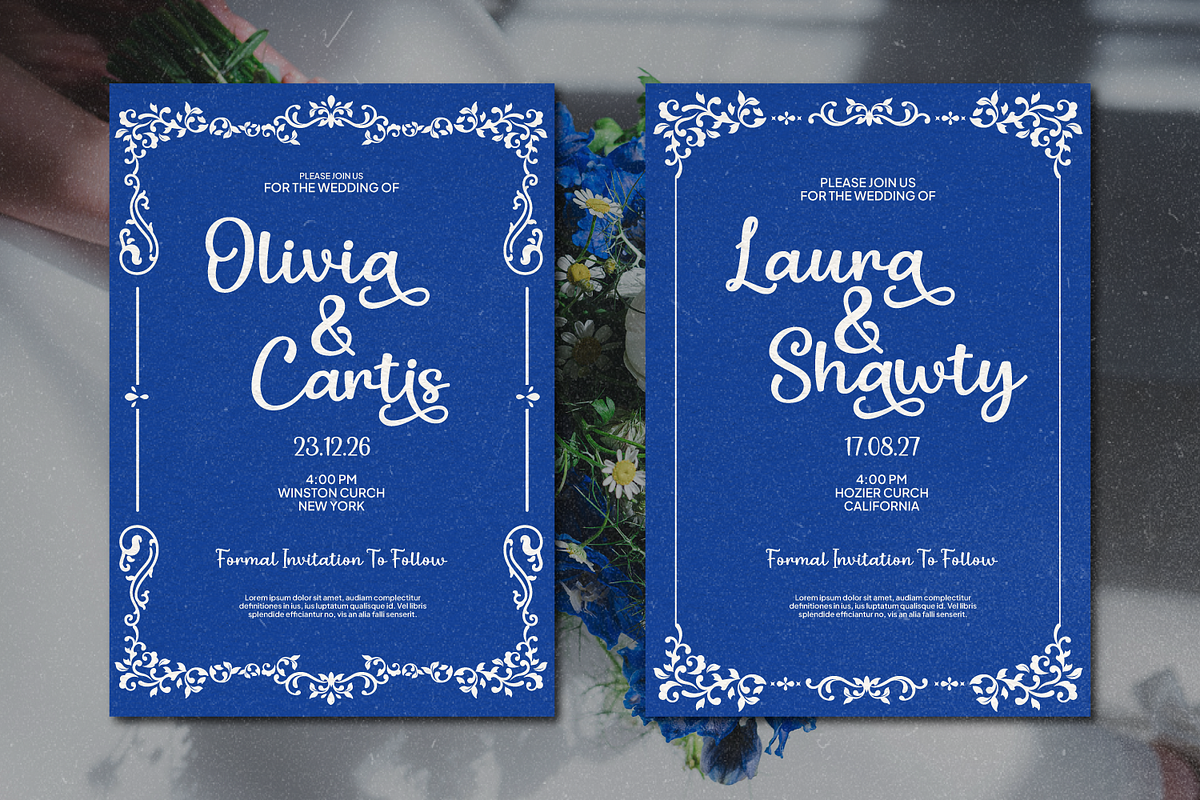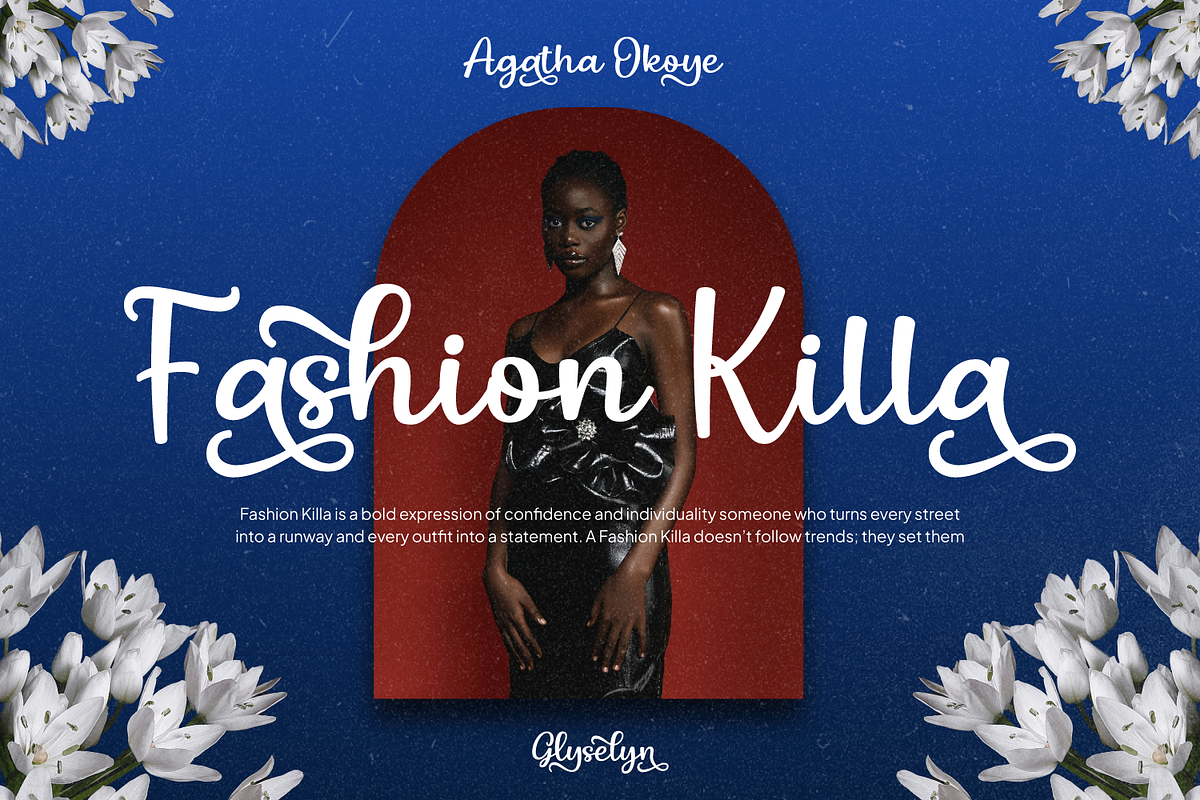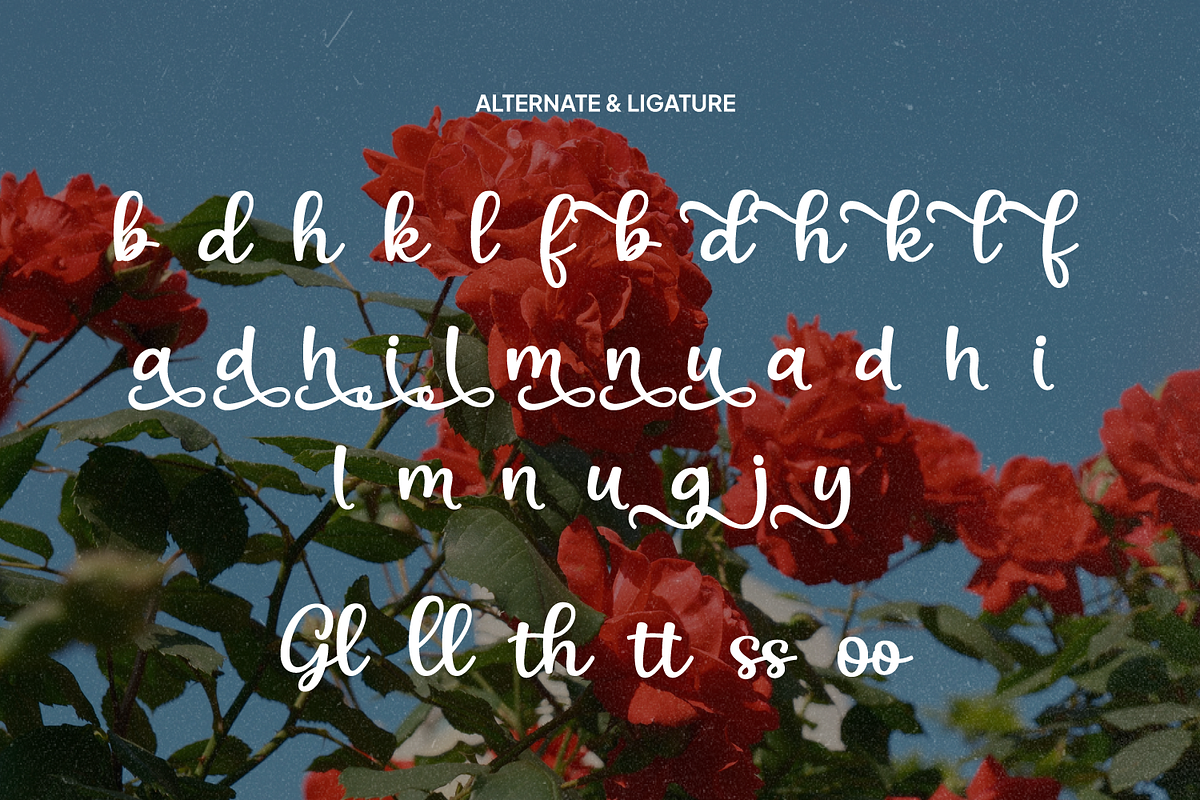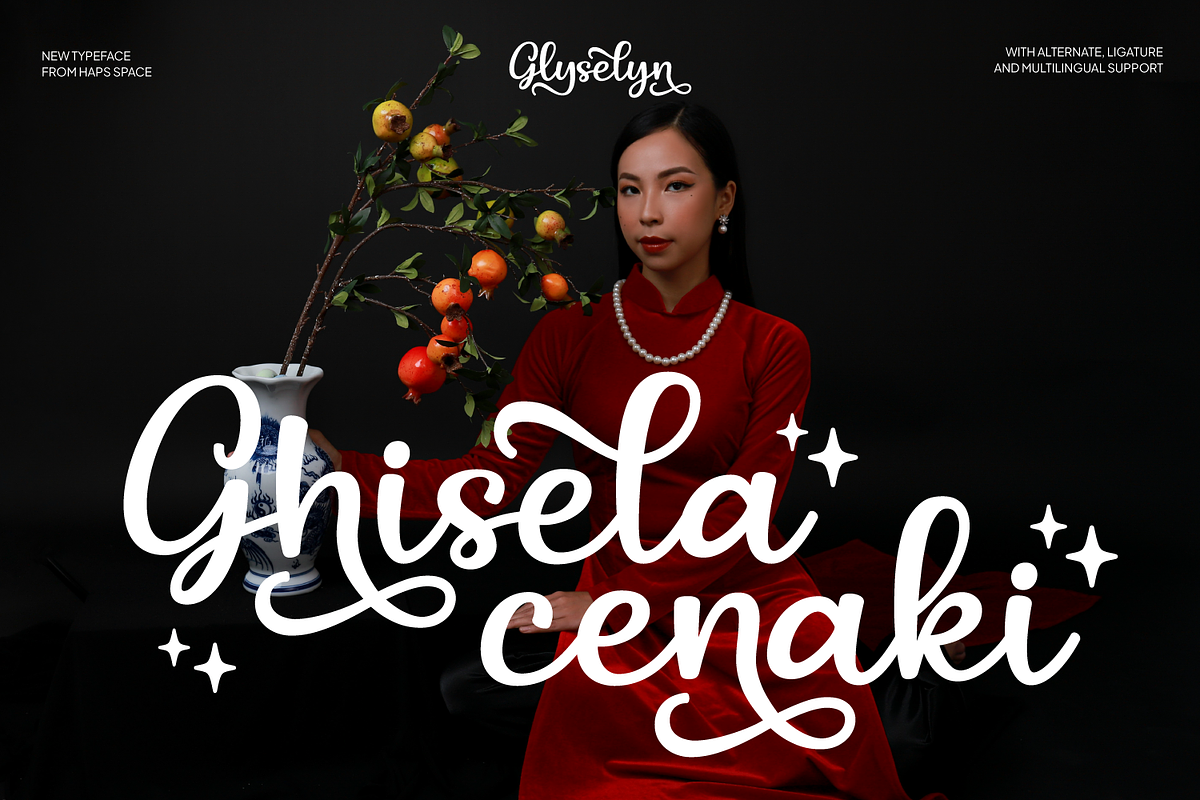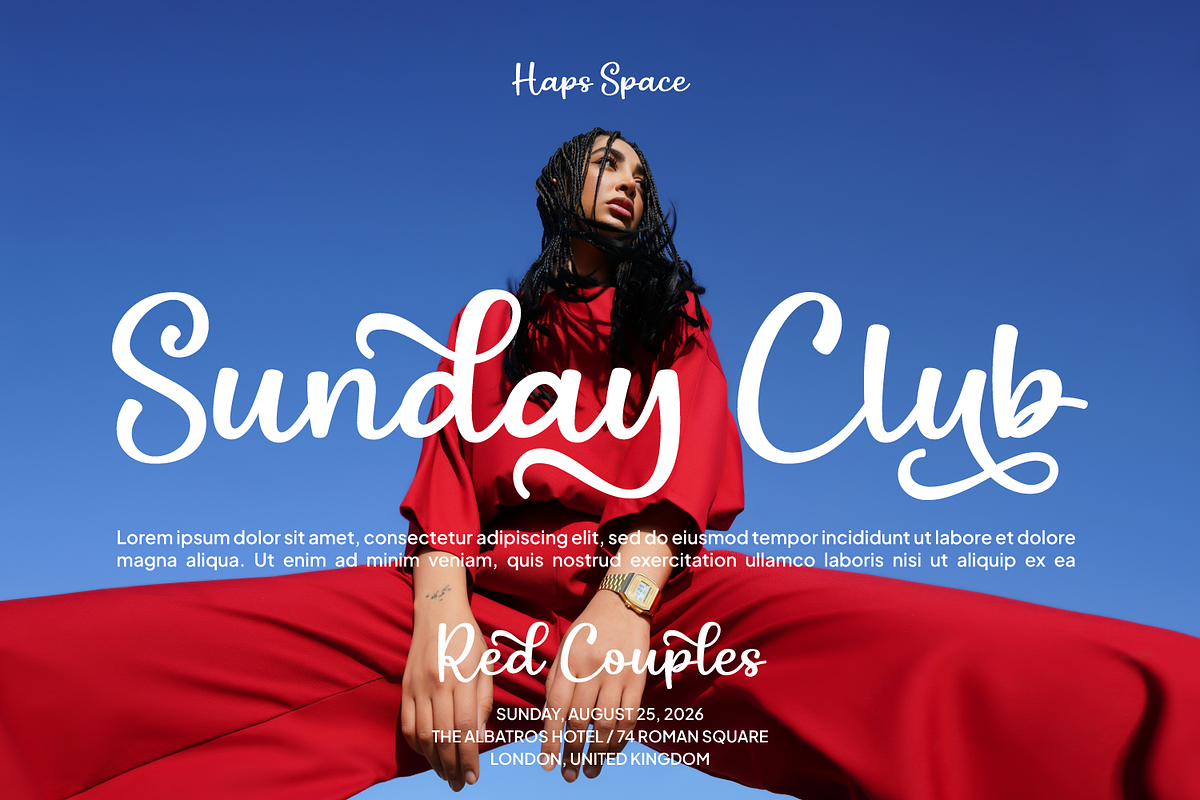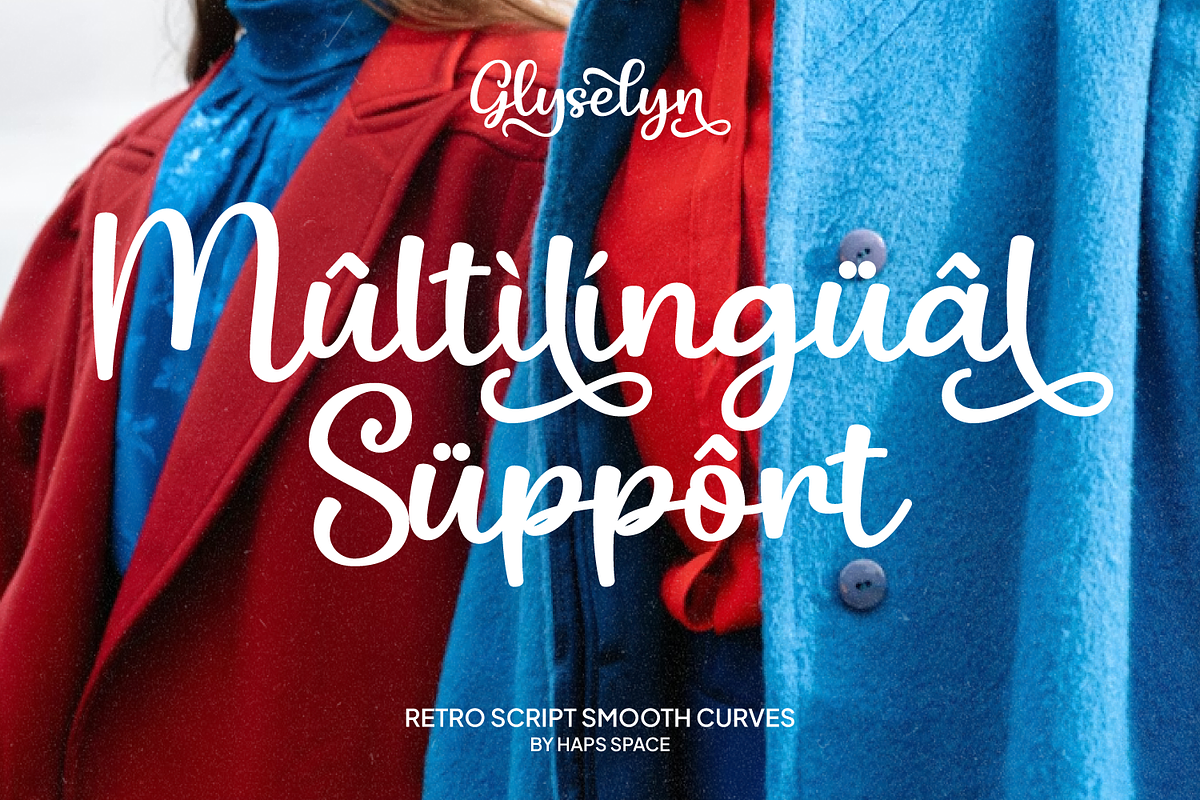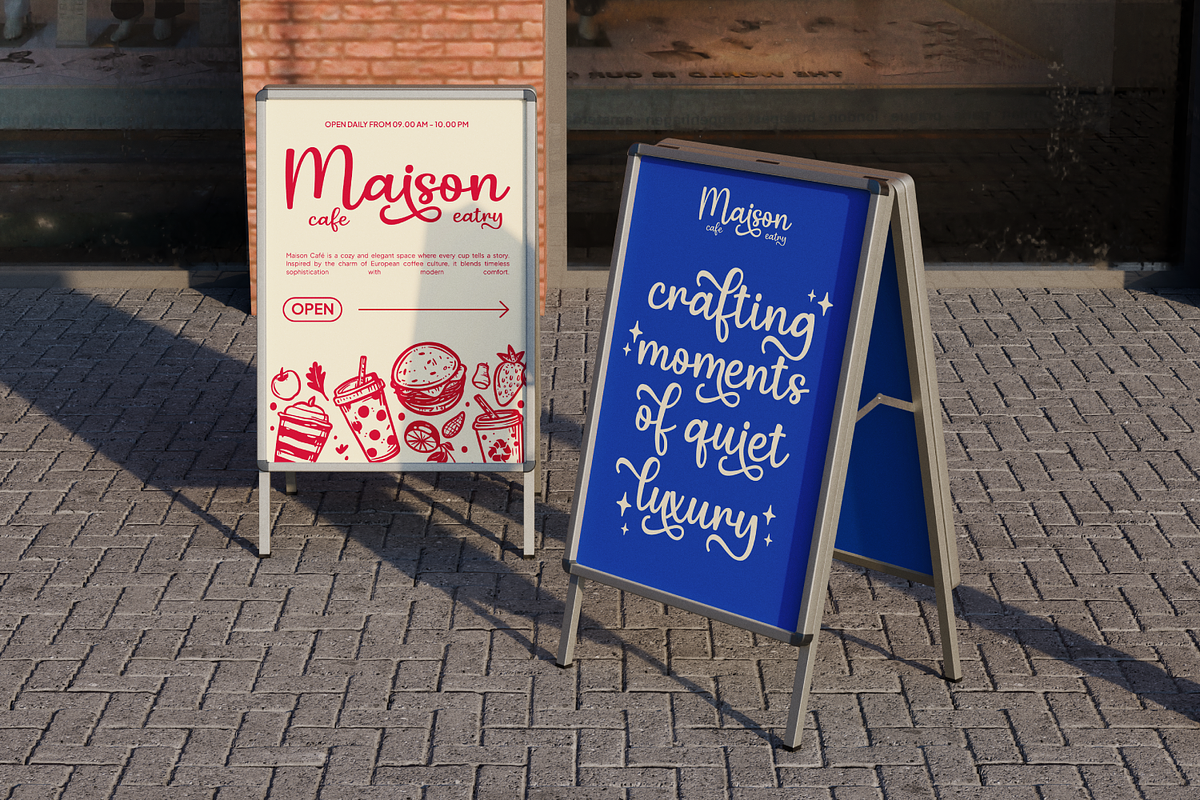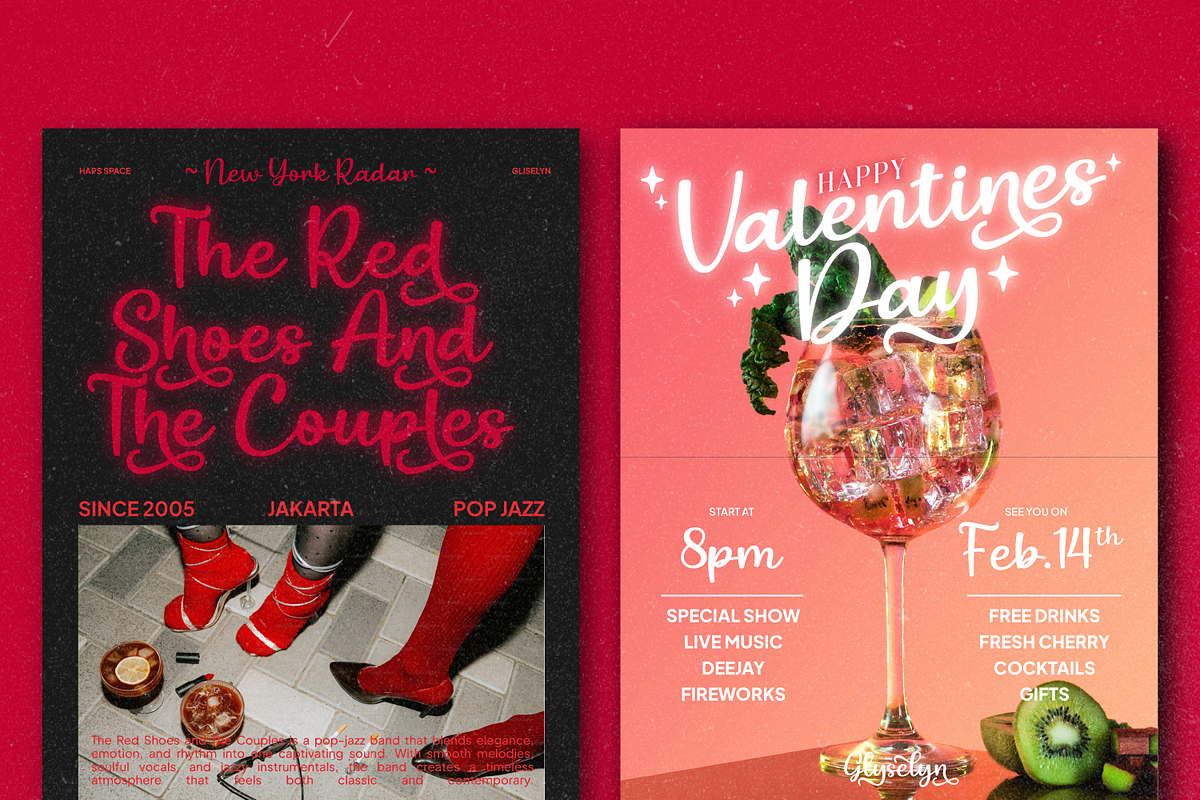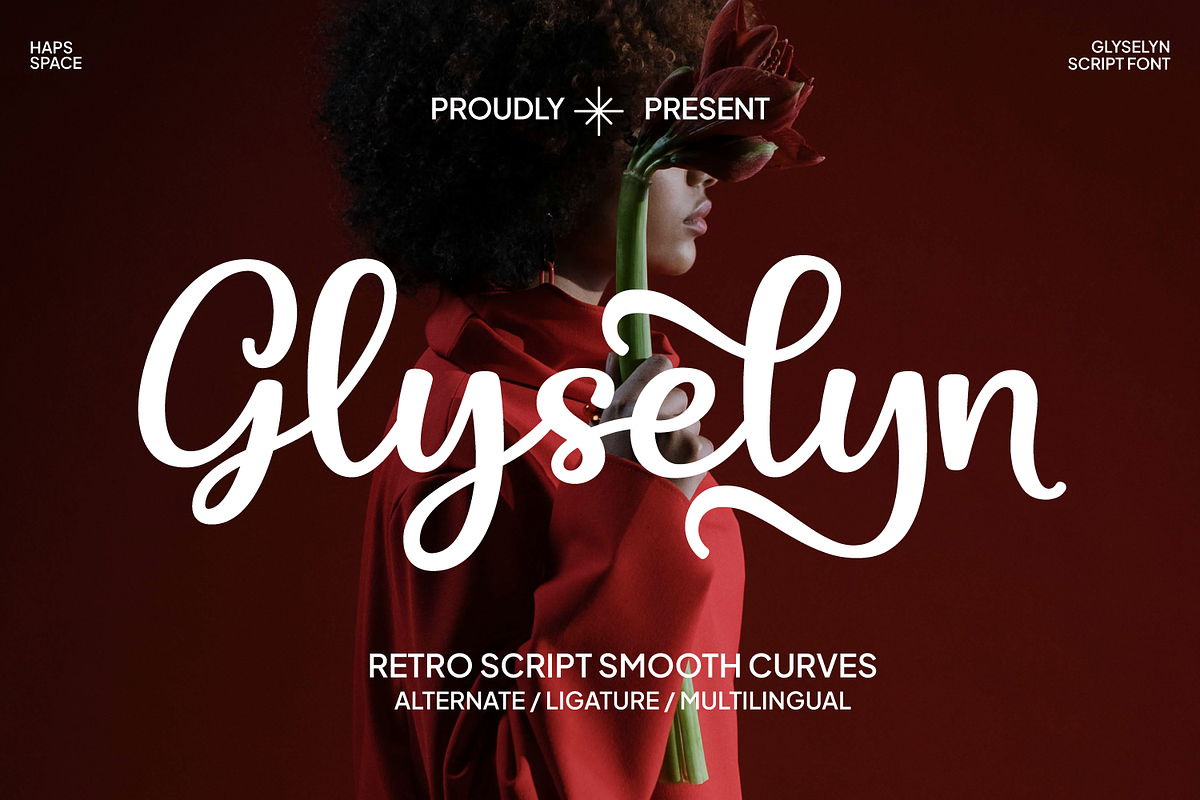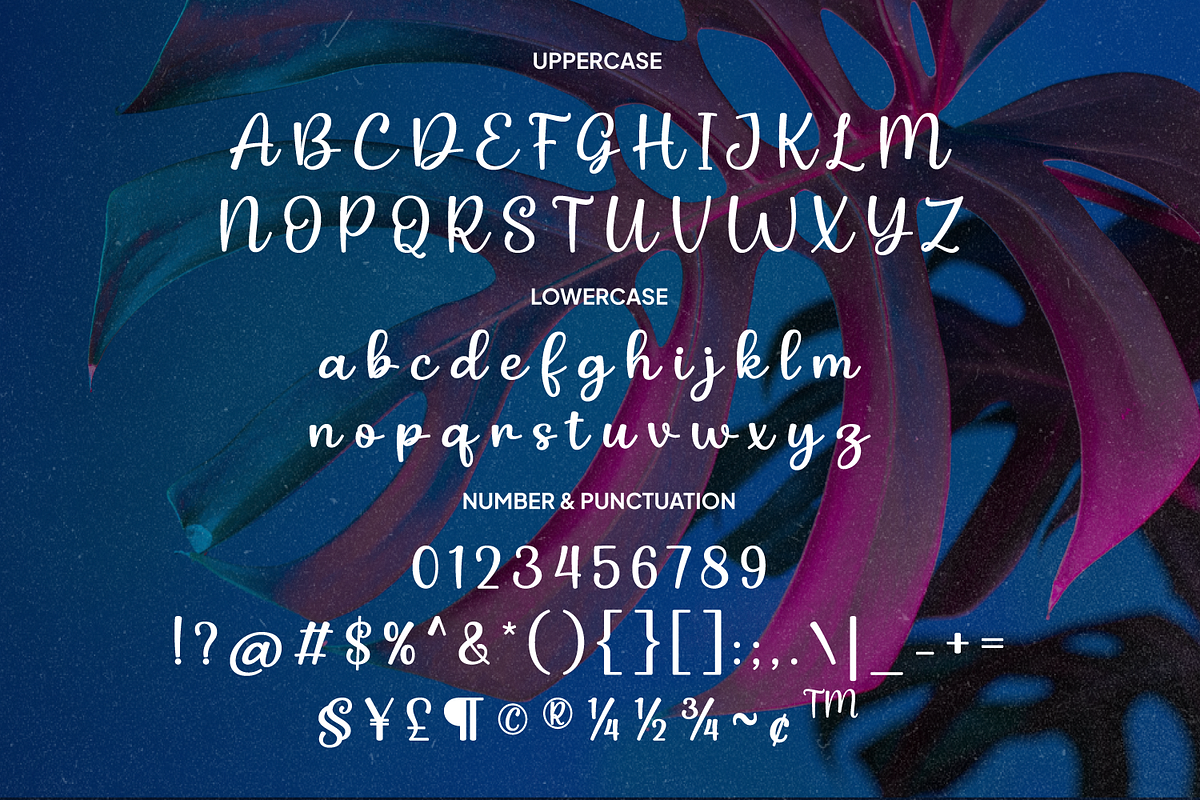
Gliselyn Elegant Retro Script
Glyselyn is a masterfully crafted retro script font that brings a timeless, sophisticated charm to your creative projects. Designed with a focus on fluid, rhythmic strokes and elegant silhouettes, this font captures the nostalgic essence of vintage penmanship while maintaining a clean, modern finish.
Equipped with a rich set of Ligatures and Stylistic Alternates, Glyselyn allows you to create custom-looking typography with ease. Whether you are designing a high-end logo, chic wedding stationery, editorial headers, or premium lifestyle branding, this font provides the professional versatility and aesthetic grace your work deserves.
Smooth, Fluid Curves: Designed for a seamless and high-end visual flow.
Extensive Alternates & Ligatures: Create unique, bespoke lettering combinations.
Multilingual Support: Ready for global creative applications.
Versatile Aesthetic: Ideal for "New Age" vintage, luxury branding, and editorial design.